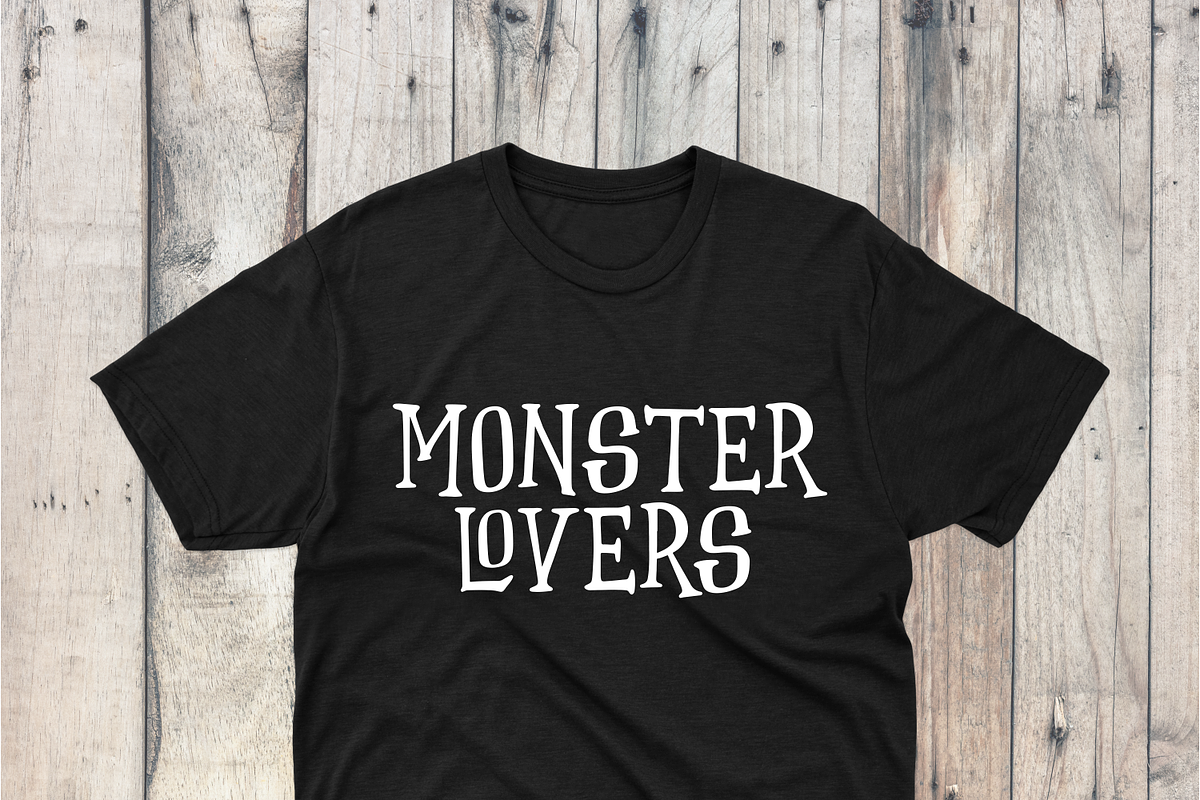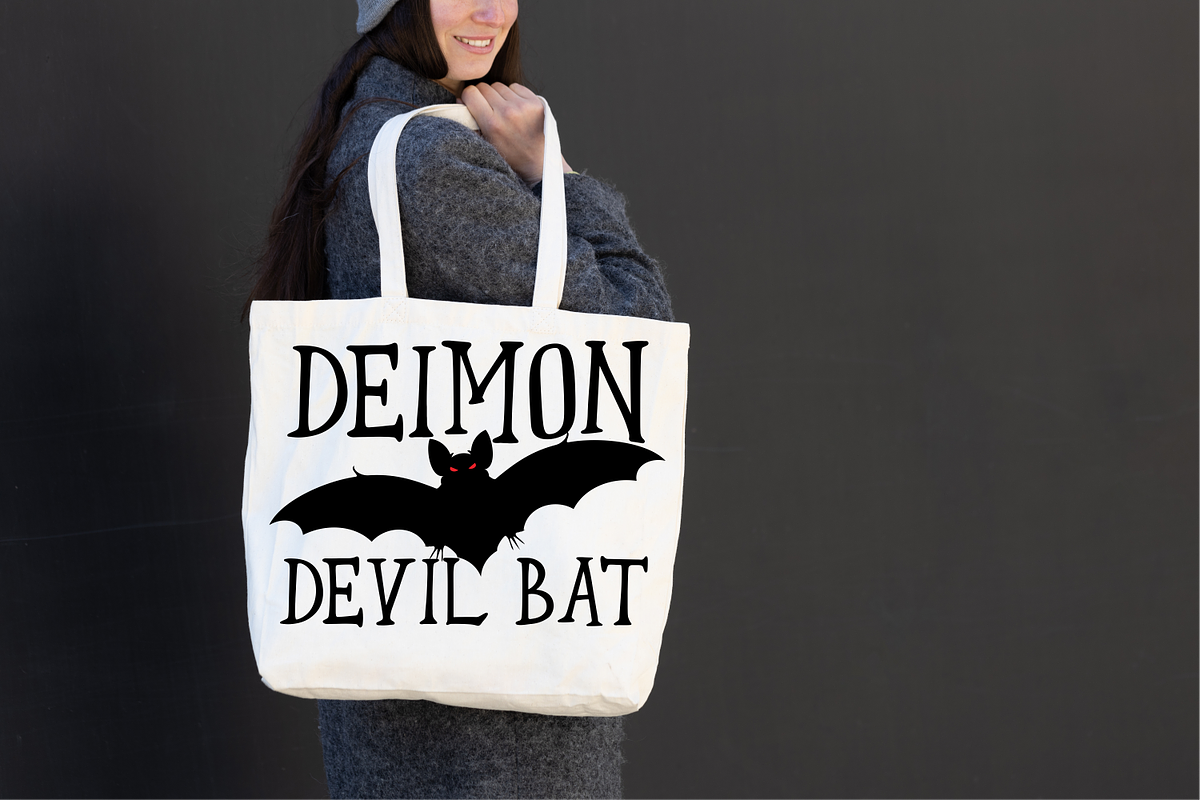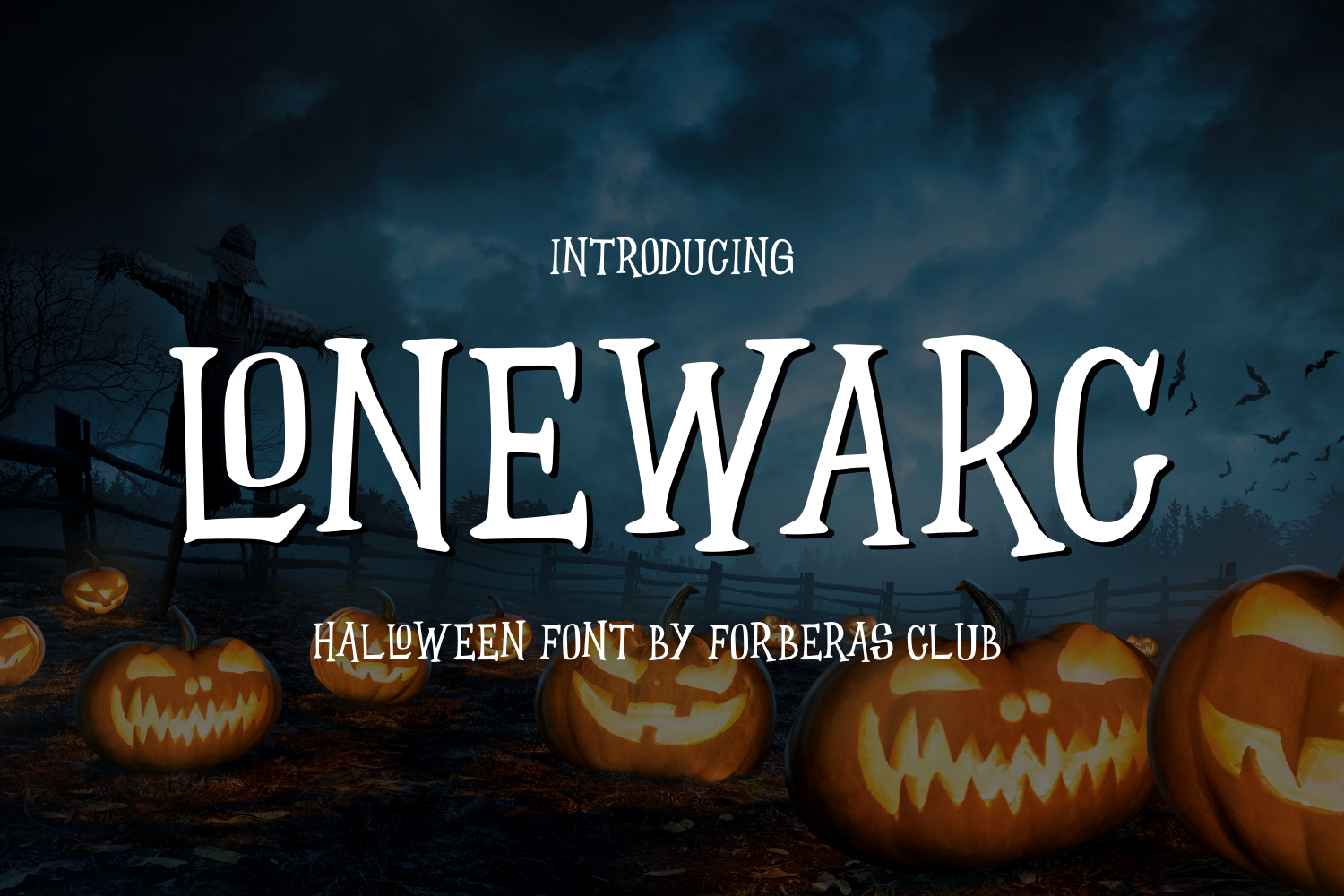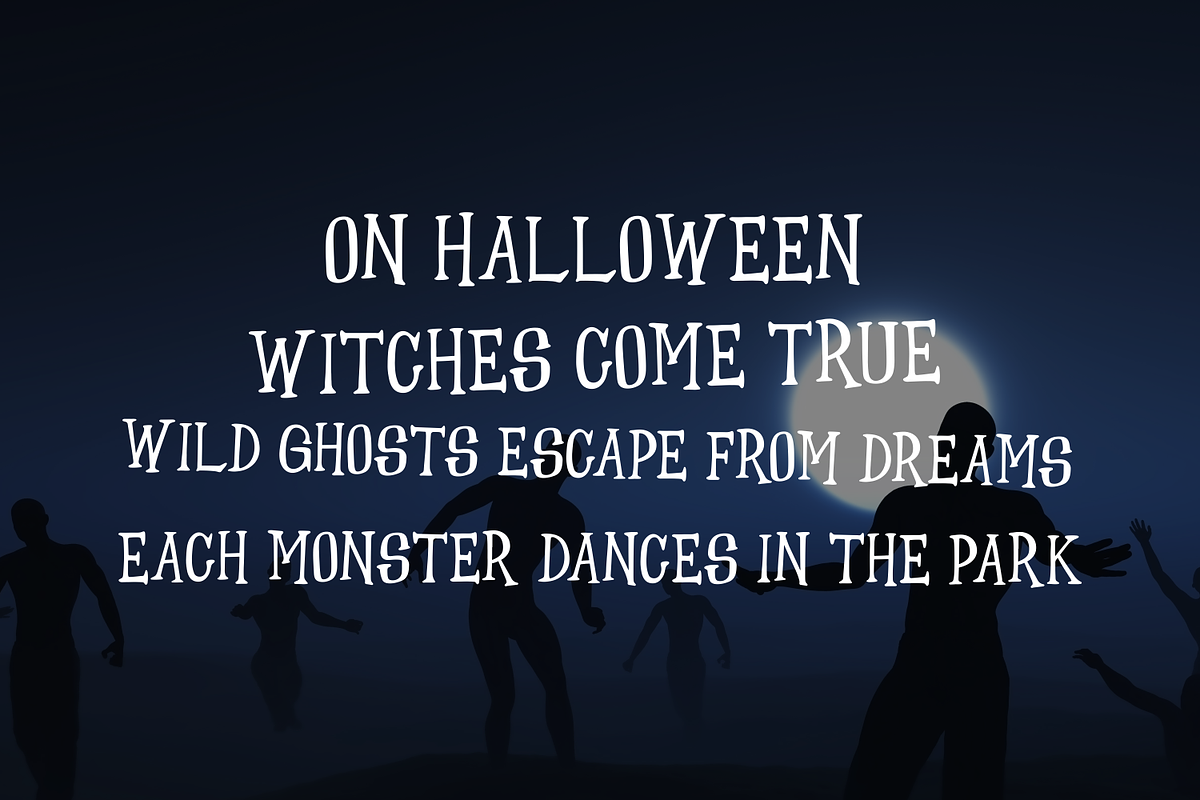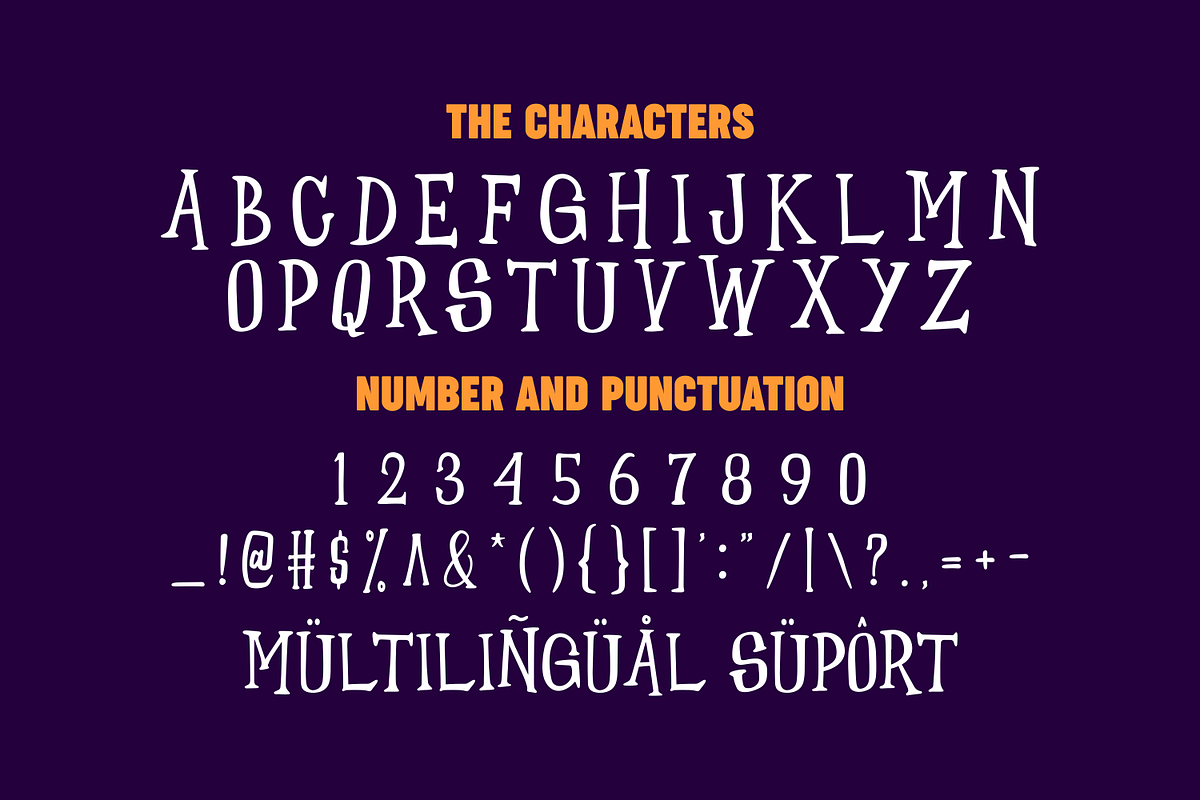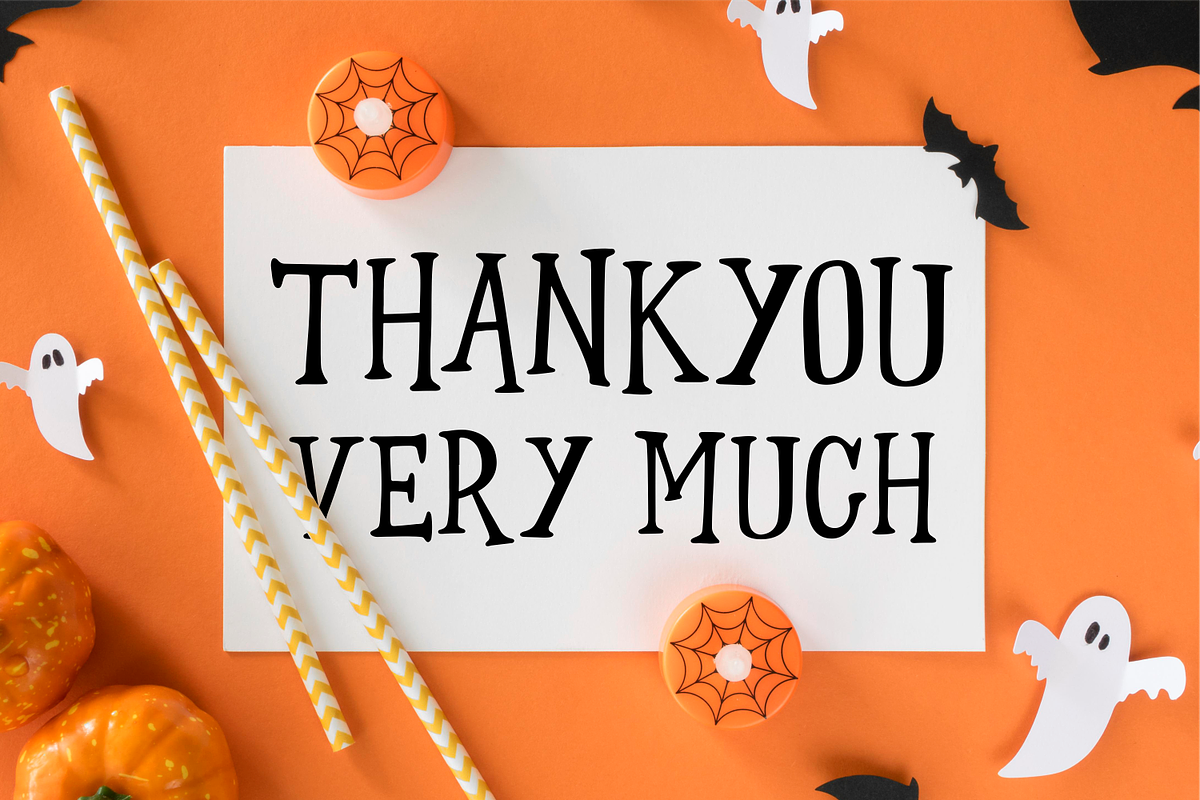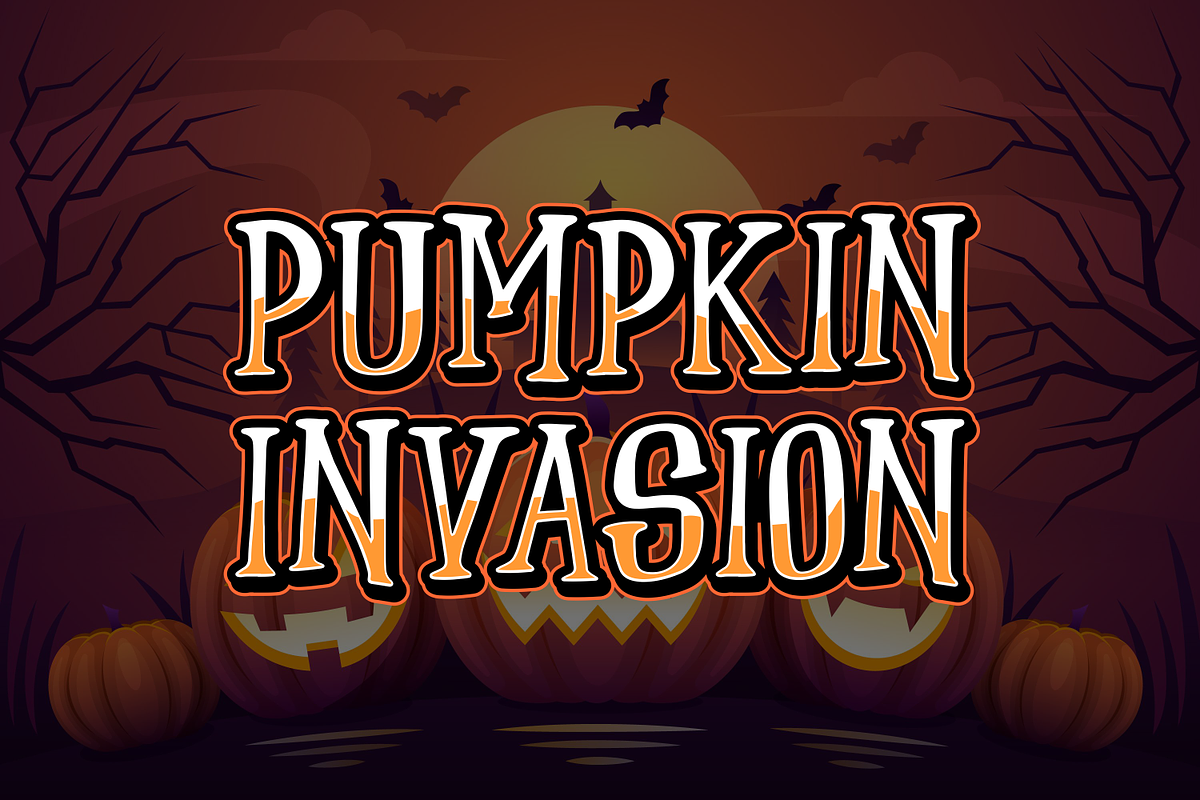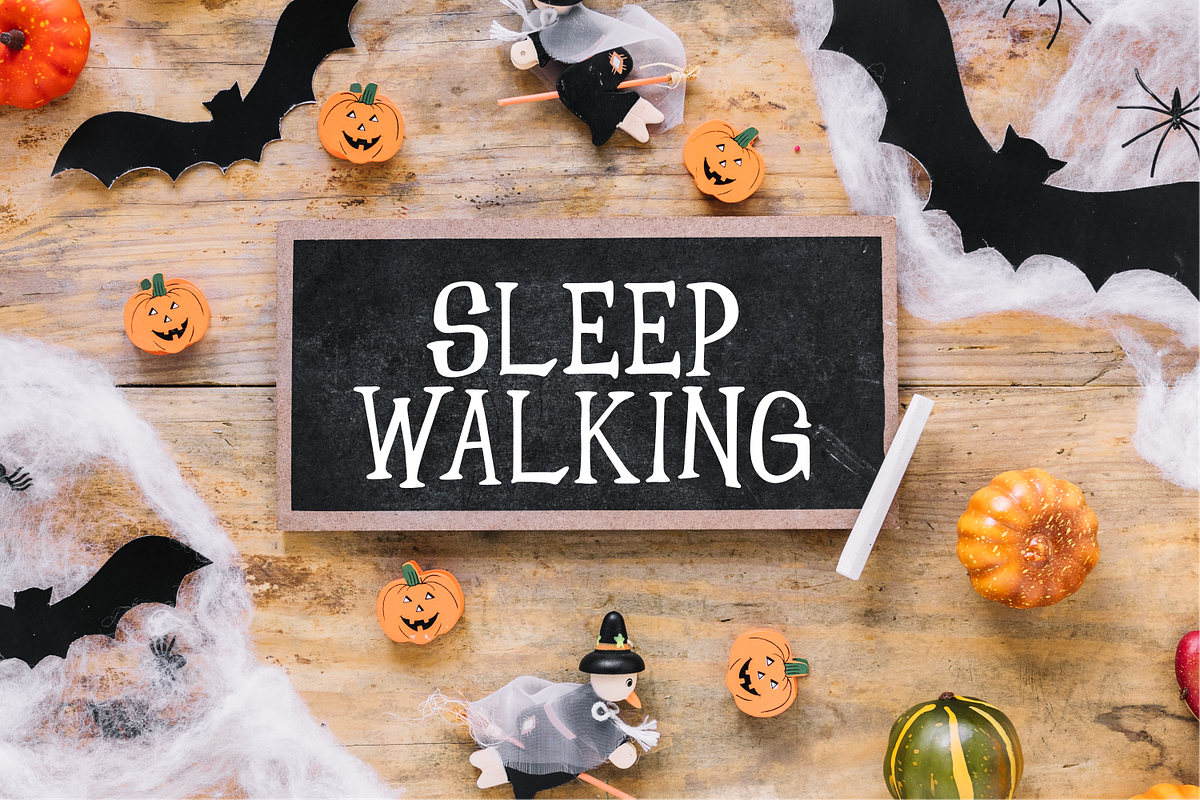
Lonewarc | Spooky Handwritten Font
Introducing Lonewarc by Forberas Club
Lonewarc is a Halloween-themed display font that will make your designs look classic, mysterious, horror, and spooky. It is a great font for events, Halloween, fashion, apparel projects, signature, album covers, logos, branding, magazines, social media posts, advertisements, but it also works great for other projects. Add it to your fonts’ library, and it will enhance your creativity!
Lonewarc is best for:
- logos, branding, & Signatures.
- Flyers, Album cover, Magazine, & Advertisements.
- Website design , design blogs, & fashion.
- Quote graphics for social media.
- and also it works great for other projects.